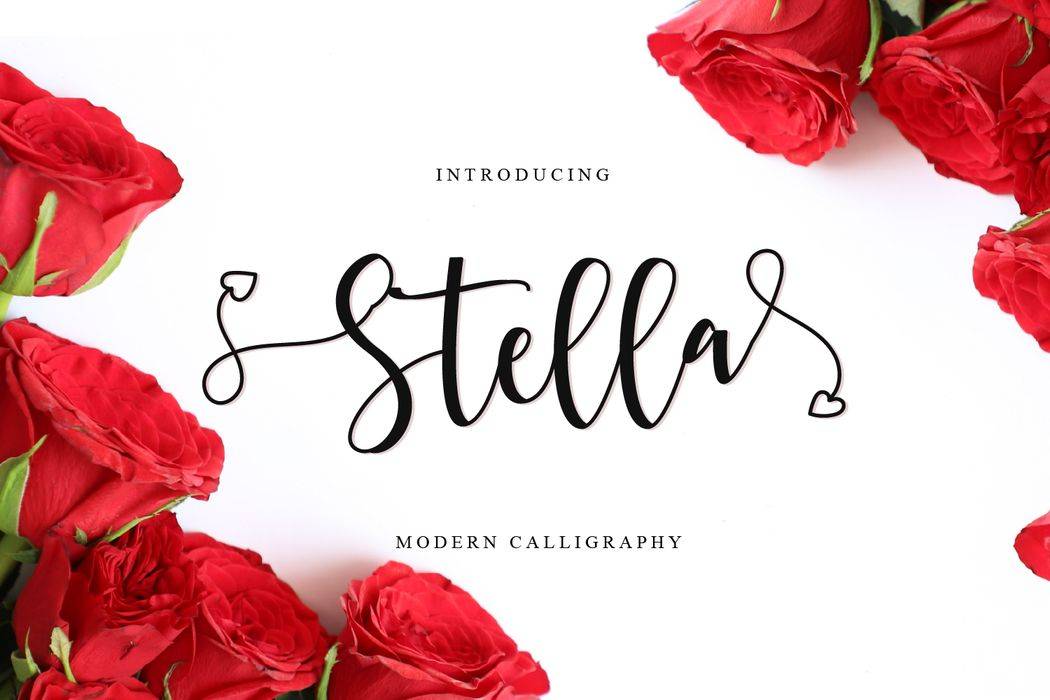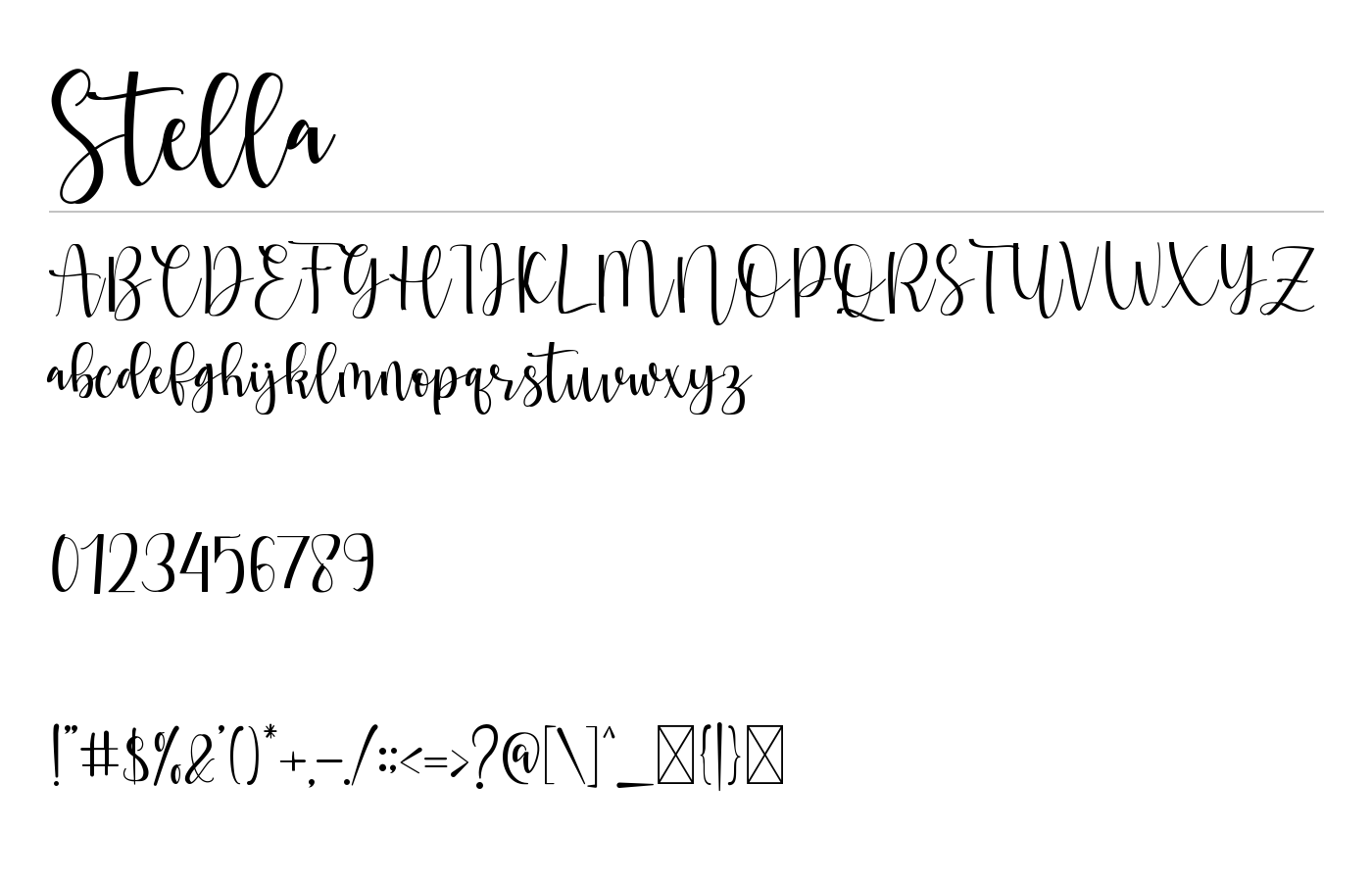
Stella Font is a delicate, elegant handwritten script with a playful yet refined personality, featuring smooth, flowing strokes and a slight contrast between thick and thin lines. Its tall x-height and distinctive letterforms make it ideal for stylish branding, invitations, and feminine designs where a personal, graceful touch is desired. This font works beautifully in headlines and logos, adding charm and sophistication to any creative project.
Stella Font
About Stella Font
| Font family | Stella Font |
| Designer | Fiqiart |